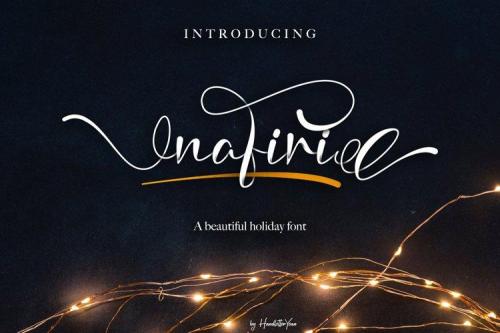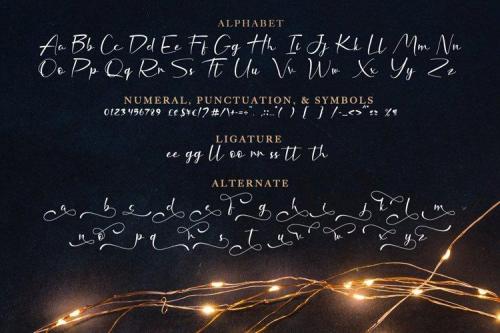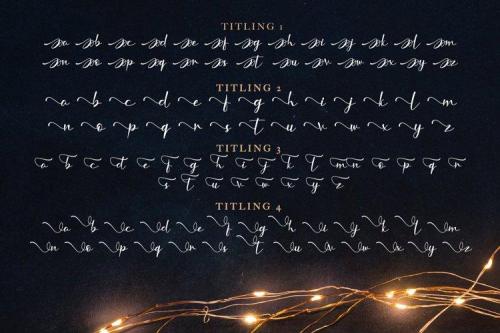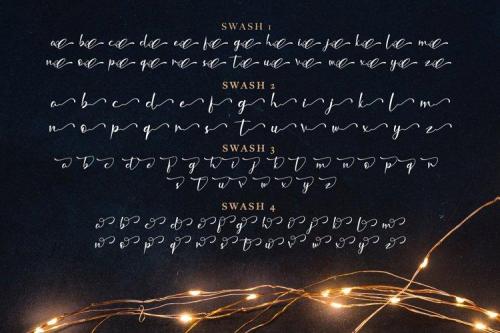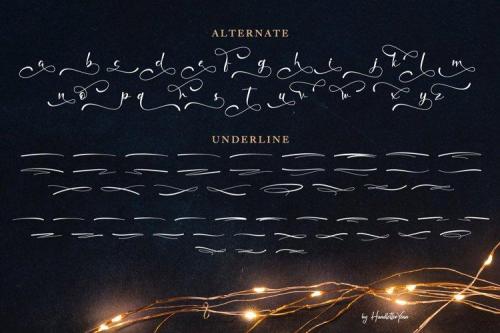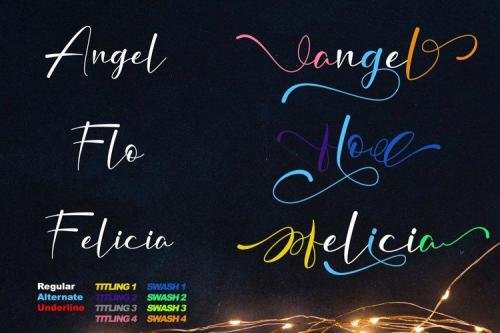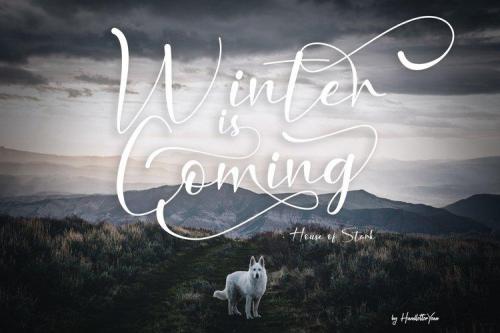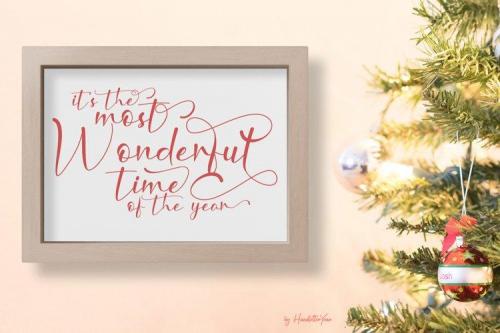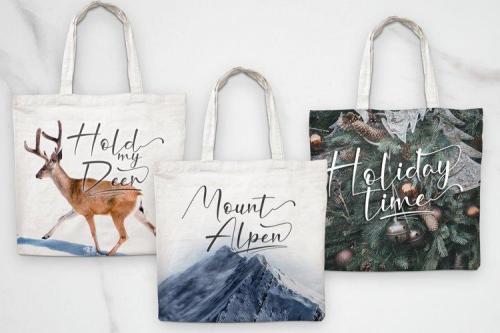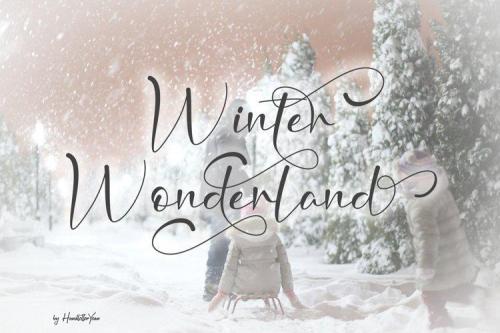
Nafiri is a beautiful and attractive font that represent the excitement of Christmas and Winter holiday. Titlings, swashes, alternates, & underlines of this font makes your design unique and stand out. Happy holiday.